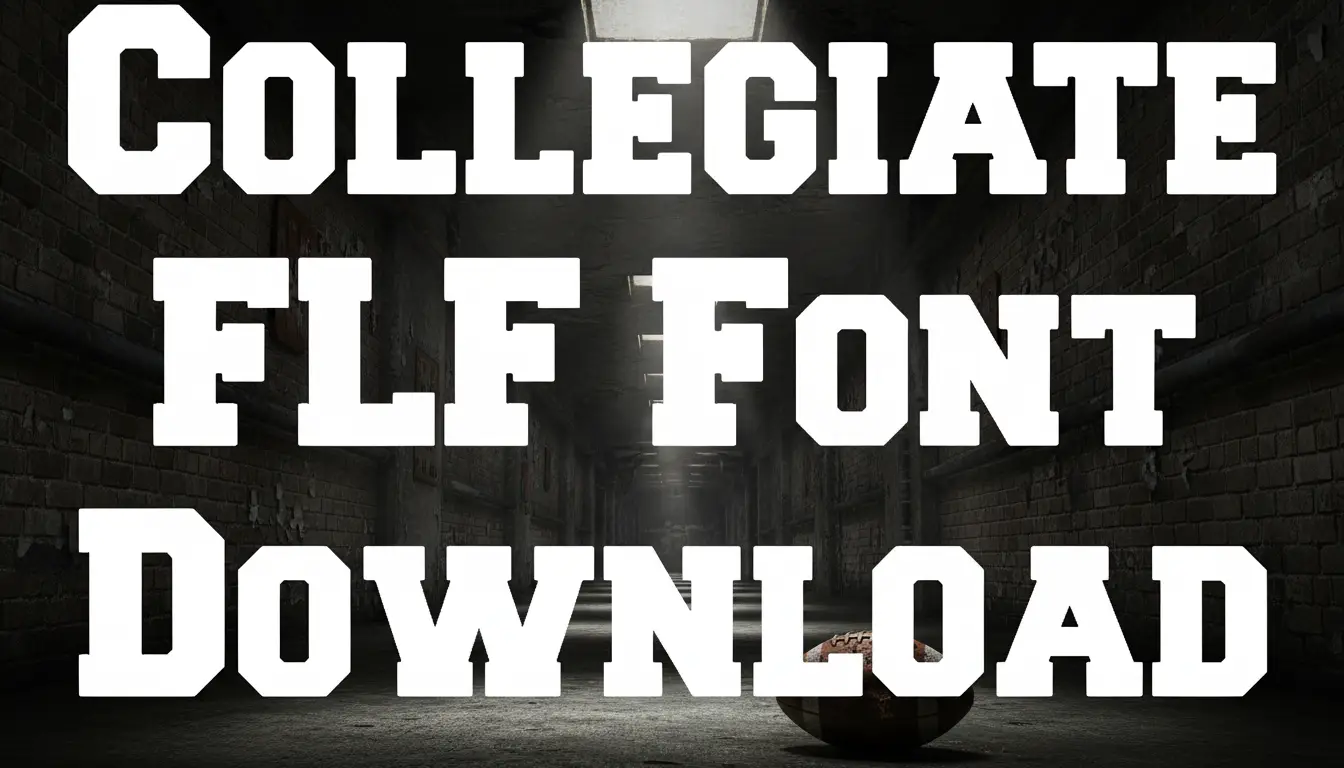
Collegiate FLF Font
Collegiate FLF
Collegiate FLF is a fancy font. It's a decorative display font with plenty of personality, made to grab attention. It's a free download, and you can try it with your own text in the preview above first.
What You Can Type With Collegiate FLF
You get every letter from A to Z in both cases and all the numbers from 0 to 9, which means Collegiate FLF can handle full sentences, dates and prices. Common punctuation such as &, !, ? and # is included as well. It doesn't include accented letters such as é or ñ, which makes it an English-only font.
Where Collegiate FLF Works Best
Designers usually reach for fonts like Collegiate FLF when they're making posters, logos and eye-catching headlines. Use it for one standout word or headline and let simpler fonts handle the rest.
Does Collegiate FLF support accented letters?
No. Collegiate FLF has no accented letters such as é, ñ or ü, so it's best for English text.